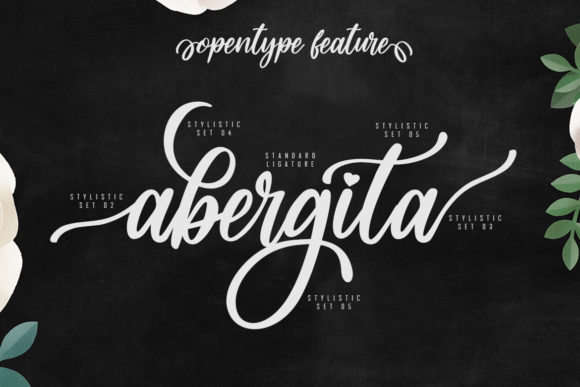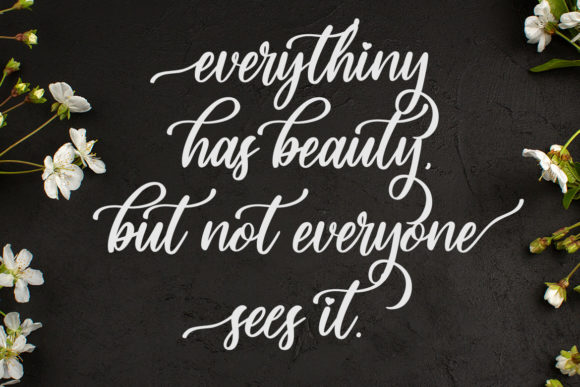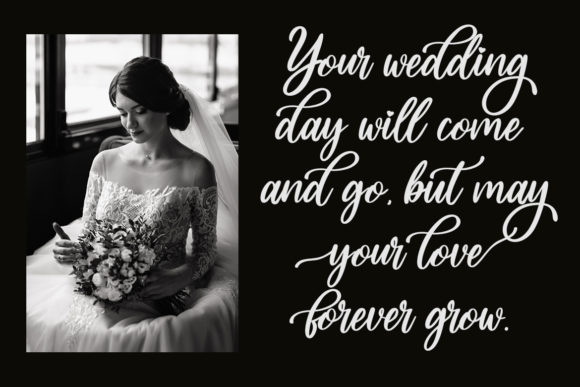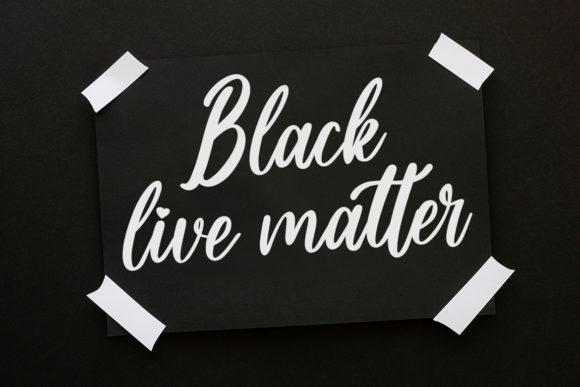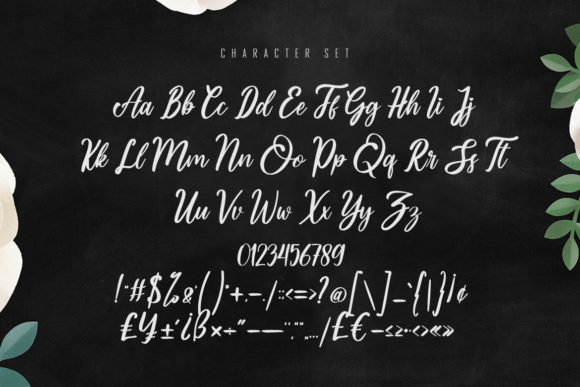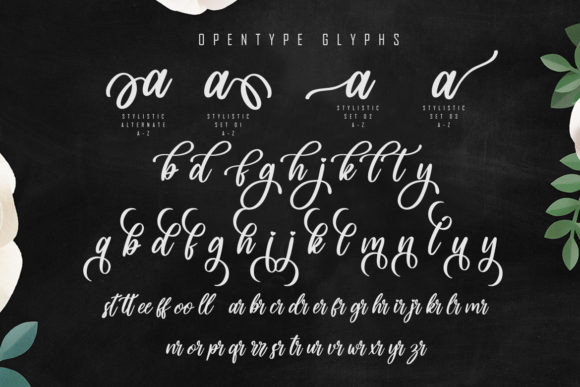
Timeless Elegance in Every Letter
There’s nothing quite like the thrill of creating something beautiful from scratch. For designers, it’s that moment when the words flow effortlessly onto the page, and the font comes alive. The right font can make all the difference, and that’s exactly what Asttuty Script Font aims to do – add a touch of timeless elegance to your designs.
With its contemporary atmosphere and impeccable form, inspired by classic calligraphy, Asttuty Script Font is the perfect choice for designers seeking to elevate their work. Its PUA encoding makes it easy to access all the glyphs and swashes, giving you endless possibilities to create unique and captivating designs.
Whether you’re working on a branding project, a wedding invitation, or a magazine cover, Asttuty Script Font is sure to bring a touch of sophistication and class to your work. Its versatility and beauty make it a valuable addition to any designer’s toolkit.
Asttuty Script Font Key Features
- Font Type: Script Font, ideal for creative and elegant designs
- Unique Characteristics: Unique ligatures, swashes, and flourishes that add a touch of elegance and sophistication to designs
Designer Review: Asttuty Script Font
I’ve had the chance to work with the Asttuty Script Font, and here’s my honest take.
- The Asttuty Script Font has a beautiful, elegant feel to it. It’s perfect for adding a touch of sophistication to your designs.
- The font’s connections are smooth and consistent, making it easy to read.
- It comes in a range of weights, from light to bold, giving you flexibility in your design.
- The font’s spacing can be a bit inconsistent, which may affect readability in certain contexts.
- It may not be the best choice for body text, as it’s a script font and can be tiring to read in large quantities.
- The font lacks some of the more advanced OpenType features, which may limit its usability in certain design scenarios.
Overall, I think the Asttuty Script Font is a great addition to any designer’s toolkit. While it may have some limitations, its beauty and elegance make it perfect for adding a touch of sophistication to your designs. Just be mindful of its limitations, and use it in the right context.
Tips for Getting the Most Out of Asttuty Script Font
1. Experiment with different font sizes and colors to create unique and eye-catching designs.
2. Use Asttuty Script Font in combination with other fonts to create a visually appealing typography.
3. Consider using Asttuty Script Font for titles, headings, and other emphasis text to add a touch of elegance and sophistication.
Asttuty Script Font is perfect for:
2. Branding and marketing materials.
3. Creative and artistic projects.
4. Digital and print publications.
Alternatives to Asttuty Script Font
Great Vibes is a beautiful, elegant script font perfect for creative and artistic projects. It features a flowing, handwritten style that adds a touch of sophistication to any design. When to use: Wedding invitations, branding for creative businesses, and any project that requires a high-end, luxurious feel. Great Vibes is similar to Asttuty Script Font in its elegant and flowing style, but it has a more refined and polished look.
Lobster is a modern script font that features a bold, playful style. It’s perfect for projects that require a fun and energetic vibe. When to use: Social media graphics, advertising, and any project that requires a bold and attention-grabbing look. Lobster is different from Asttuty Script Font in its bold and playful style, making it a great alternative for projects that require a more energetic feel.